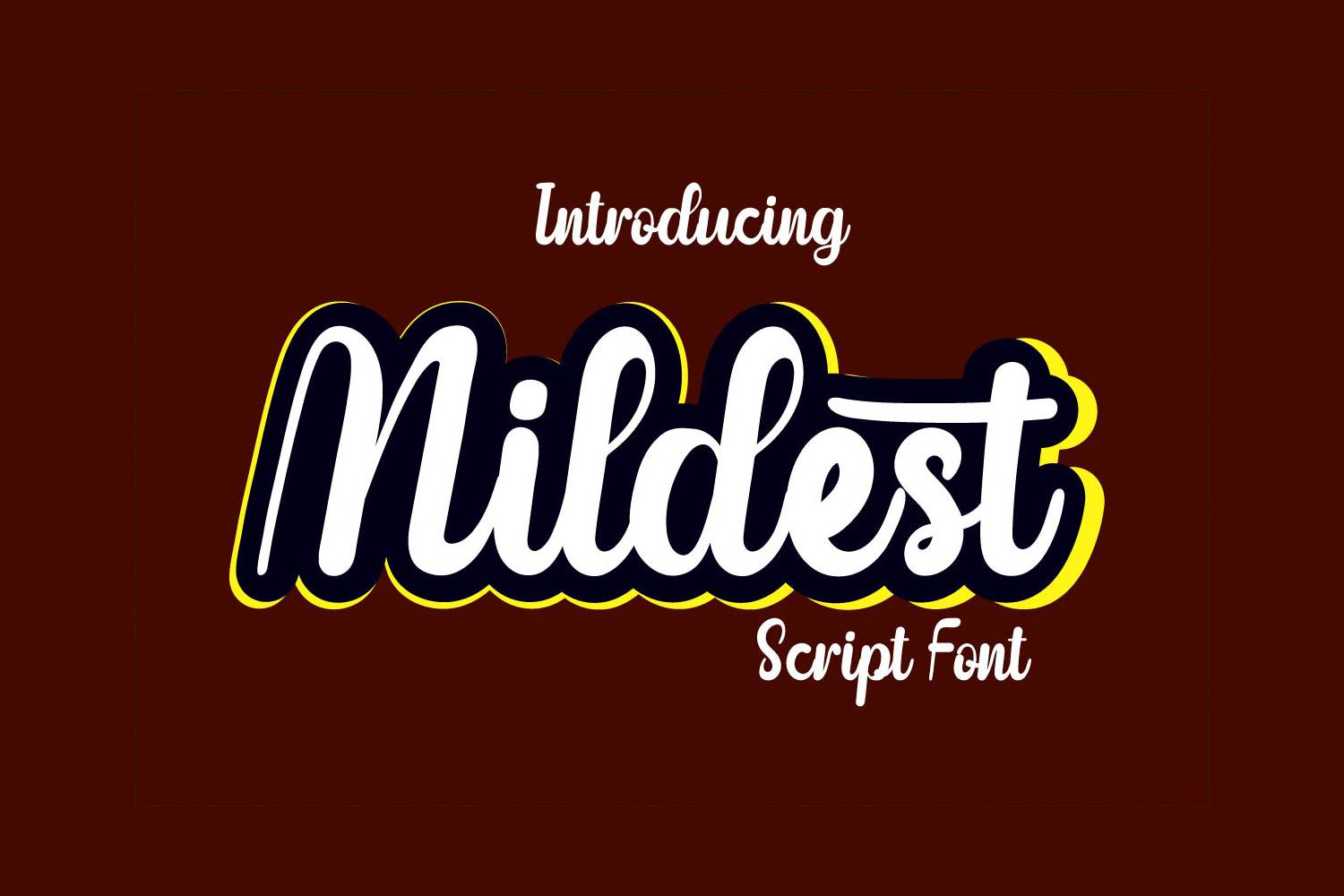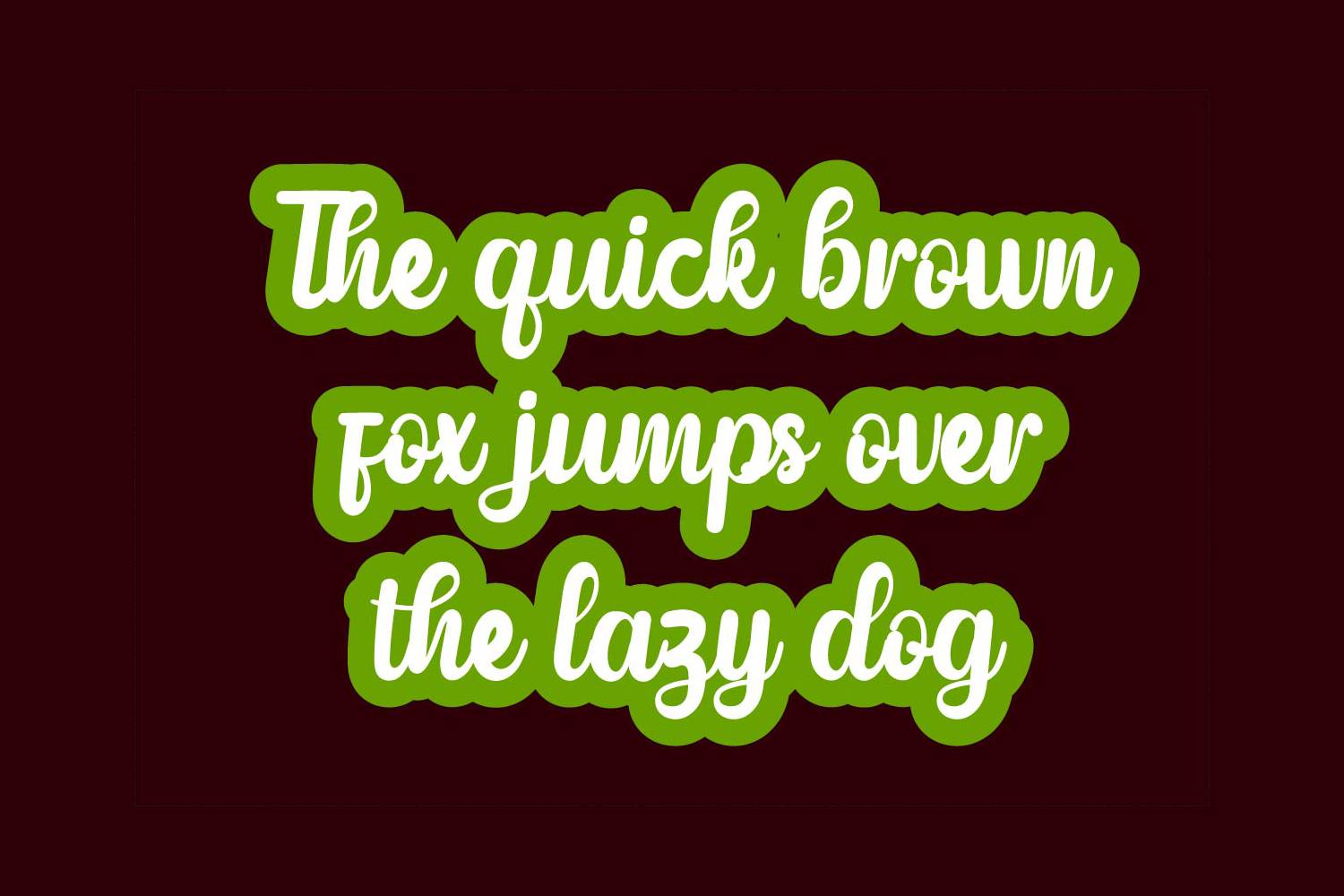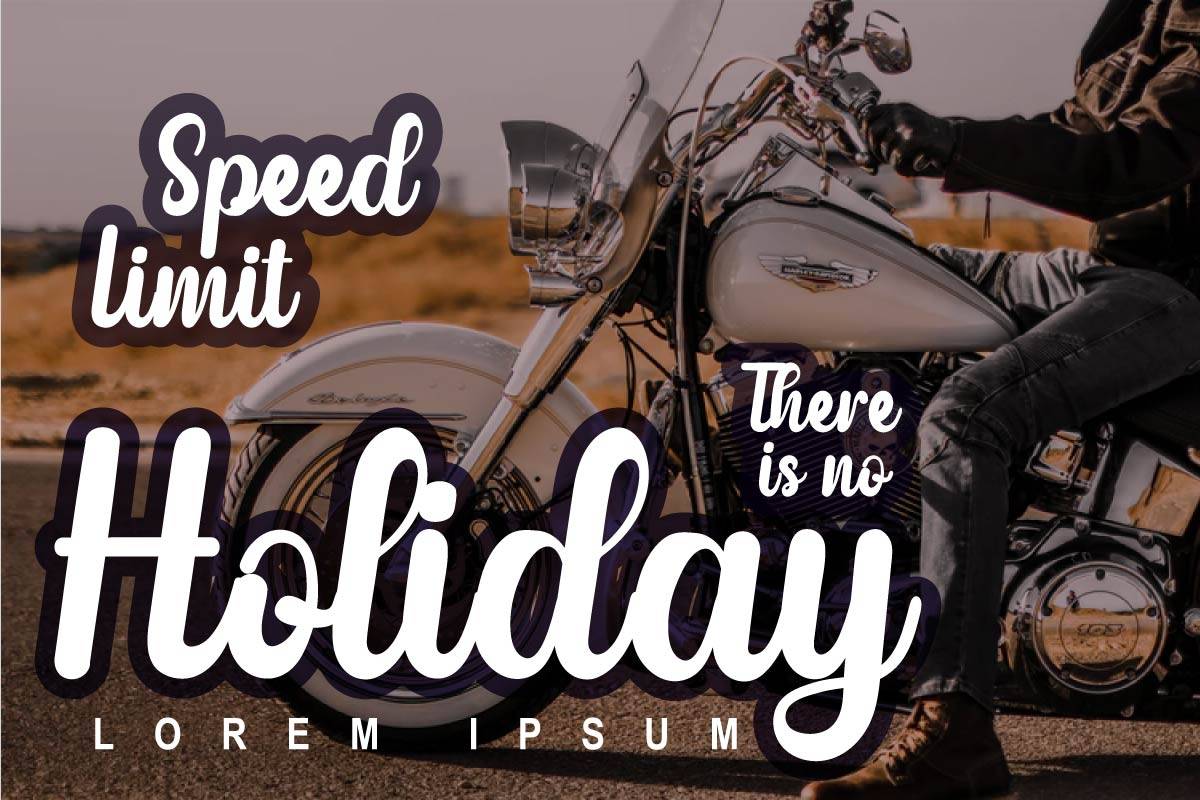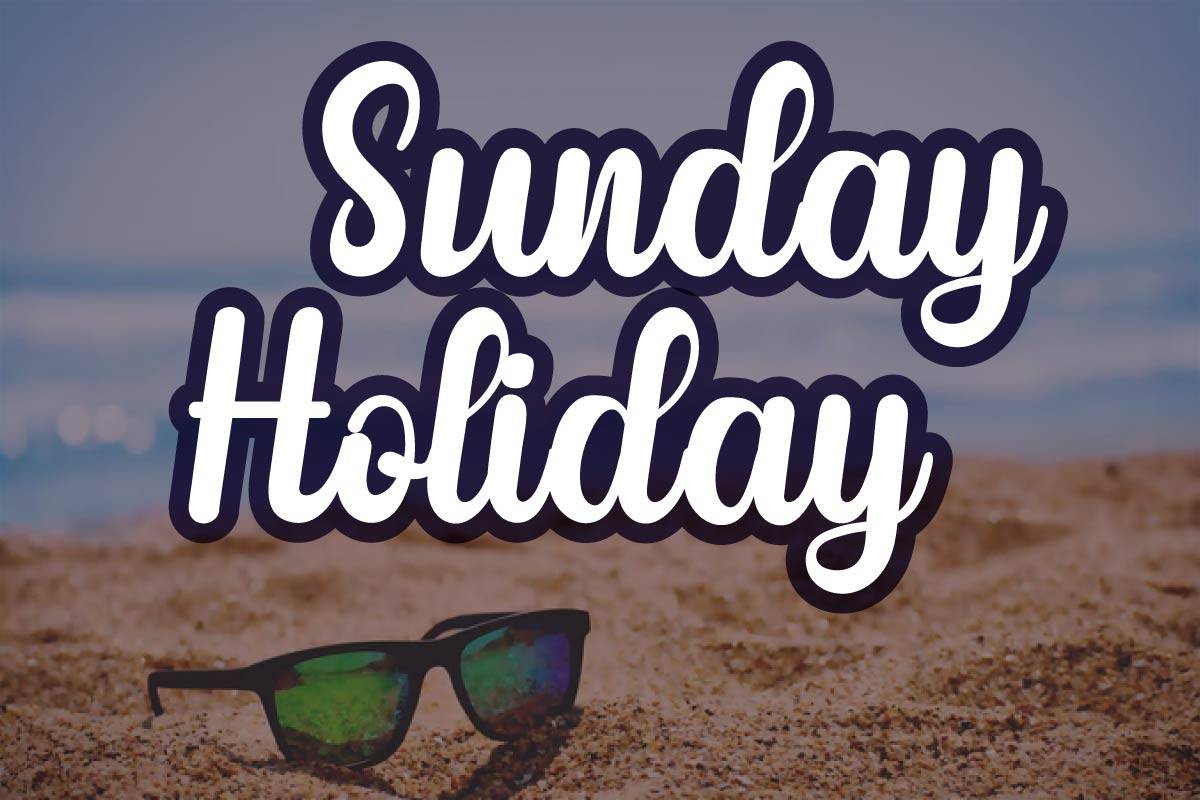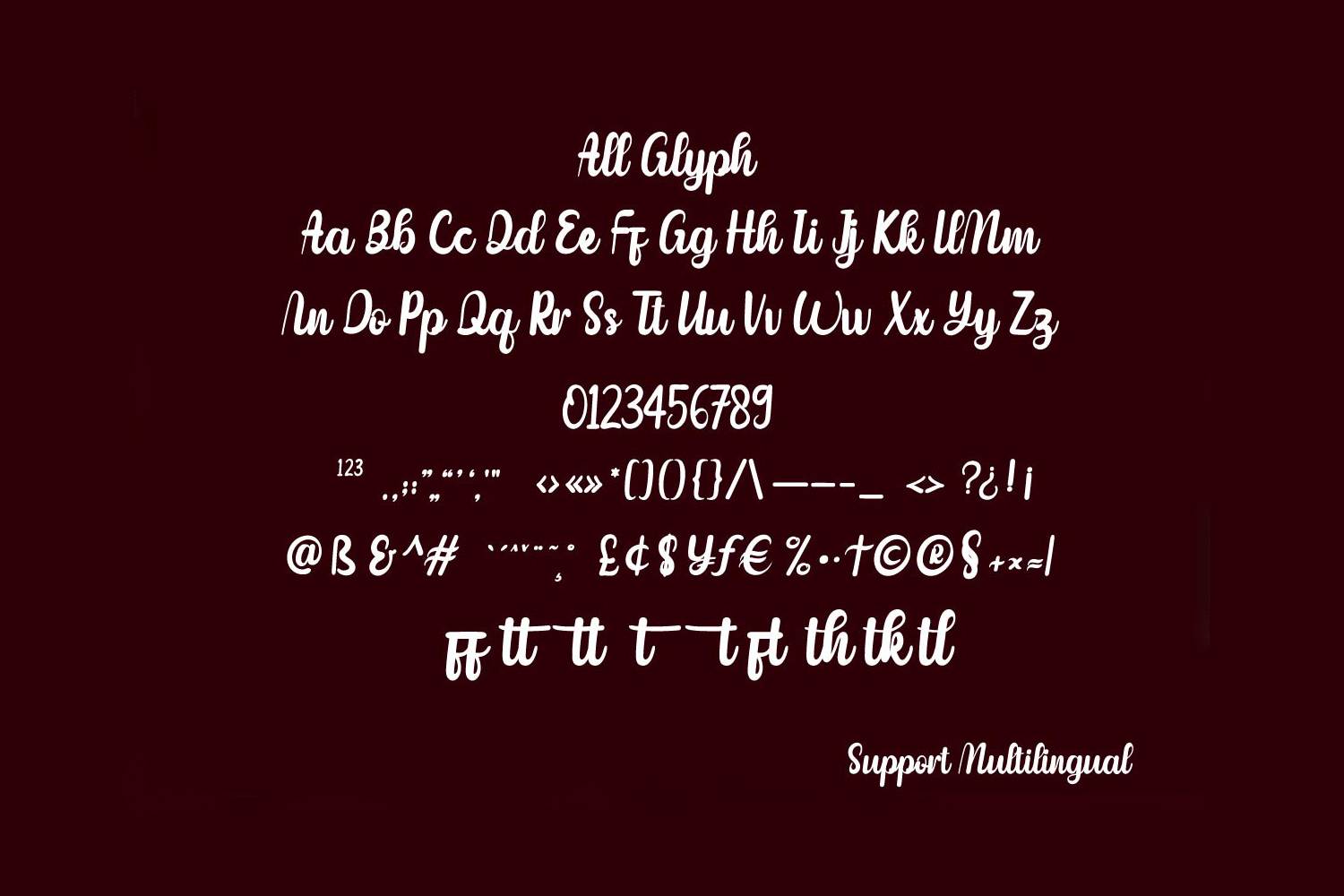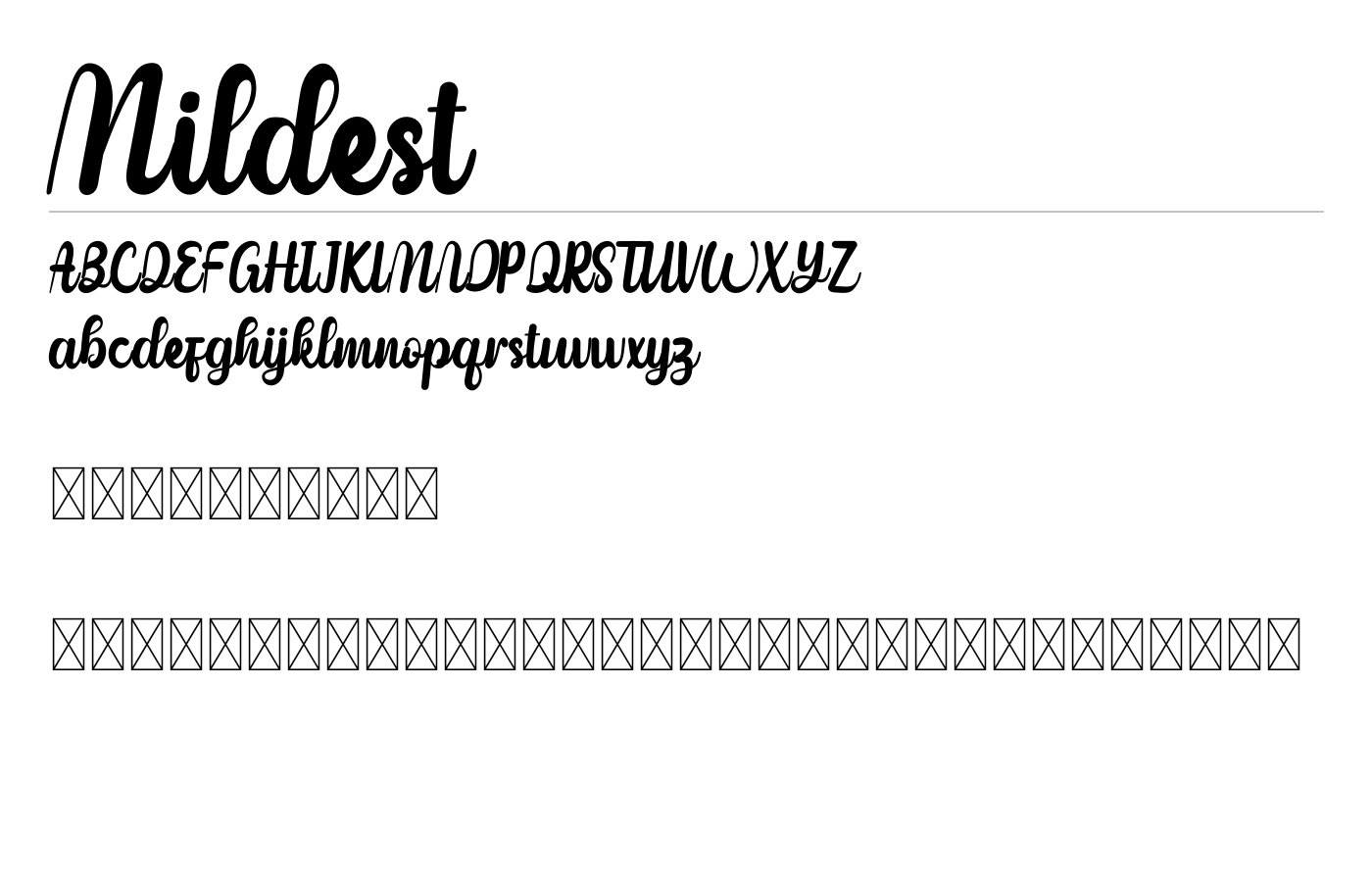
Mildest is a smooth, playful script font with a lively, handwritten feel, featuring rounded strokes and a medium weight that gives it a warm and approachable charm. Its flowing letterforms are perfect for adding a personal, friendly touch to branding, invitations, or creative projects that want to convey a casual yet stylish vibe. This versatile font works especially well in logos, packaging, and headlines where a cheerful and inviting tone is desired.
Mildest Font
About Mildest Font
| Font family | Mildest Font |
| Designer | Khamdan Ngabdul khakim |